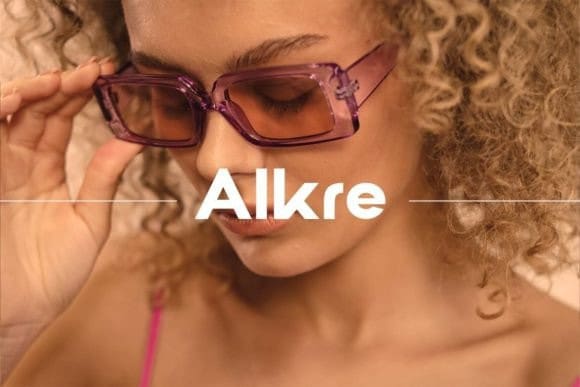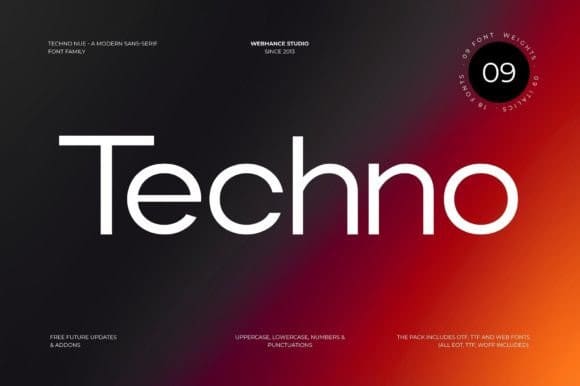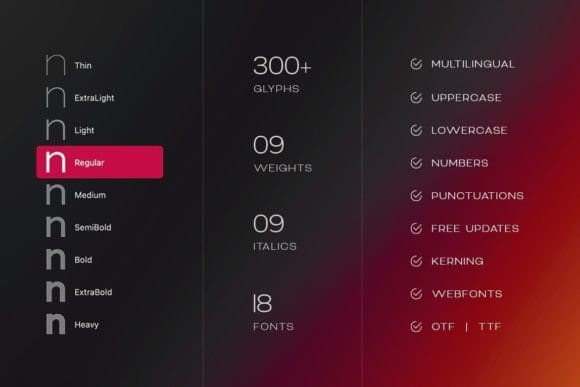
Techno Font Family
Techno Font Family a sophisticated sans-serif font family meticulously crafted to enhance your design projects with its modern aesthetic and minimalist sensibility. With 9 meticulously designed weights ranging from the delicate Thin to the commanding Heavy – alongside their corresponding italics, Techno Nue offers a total of 18 fonts to meet all your design needs.
This font is suitable for branding, logo creation, web design, poster design, Instagram visuals, social media posters, text for reels, video infographics, YouTube thumbnails, and more. Each weight is carefully optimized for both print and digital media, ensuring seamless integration across various platforms. Elevate your designs with Techno Nue’s clean lines, impeccable legibility, and contemporary flair.